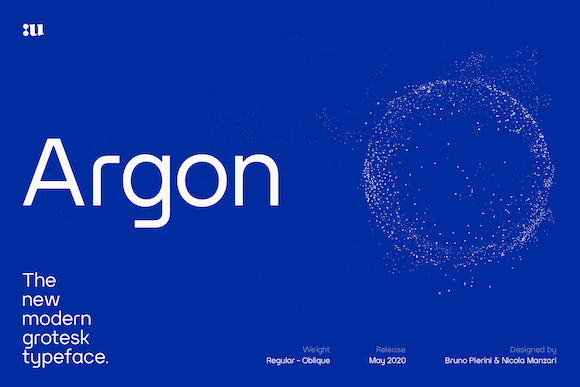
The Argon Font: A Simple yet Powerful Design Companion
I’ll never forget the time I was working on a project for a client who needed a clean and modern font to represent their brand. I spent hours scouring through font libraries, but nothing seemed quite right. That was until I stumbled upon the Argon font. Its simple, sans-serif design and clean feel immediately caught my attention, and I knew I had found the perfect fit. In this article, I’ll share my experience with the Argon font, its features, and how to make the most of it in your designs.
A First Impression: What I Love About Argon
The Argon font has quickly become a staple in my design toolkit, and for good reason. Here are a few things that I love about it:
- ✨ Clean and simple design: The Argon font has a neat and beautiful arrangement of letters, making it perfect for both formal and non-formal designs.
- ✅ High legibility: The font’s clear and concise design makes it easy to read, even at small sizes.
- 💡 Versatility: Argon works well in a variety of design contexts, from digital media to print materials.
While the Argon font is a powerful design tool, it’s not without its limitations. Here are a few things to keep in mind:
- 🤔 Limited stylistic options: While Argon has a few stylistic alternates, it’s not as flexible as some other fonts on the market.
- ⚠️ Not ideal for body text: While Argon is great for headings and titles, it may not be the best choice for longer blocks of text.
The Story Behind Argon
The Argon font was designed by a team of typographers who wanted to create a clean and modern sans-serif font that would work well in a variety of design contexts. Inspired by the simplicity and elegance of traditional typography, the Argon font is a perfect blend of form and function.
| Font Name | Argon Font |
| Author | unio.creativesolutions |
| What is the Argon font? | The Argon font is a simple and casual sans-serif font with a clean feel. |
| What are some common uses for the Argon font? | Argon is a versatile font that can be used for a wide range of design applications, including headings, titles, and digital media. |